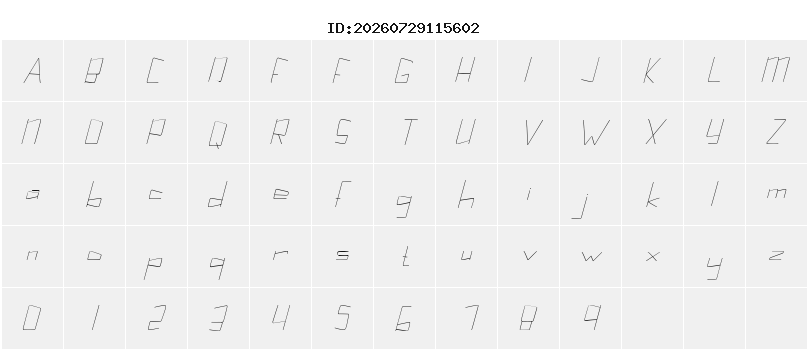
• Font Name: Kuppel
• Font Style: Ultra-condensed Thin Italic
• Designer: Kimmy Kirkwood
Kuppel.ttf is a modern, elegant sans-serif font designed for ultimate readability and visual harmony. Perfect for branding, headlines, web design, and print materials.